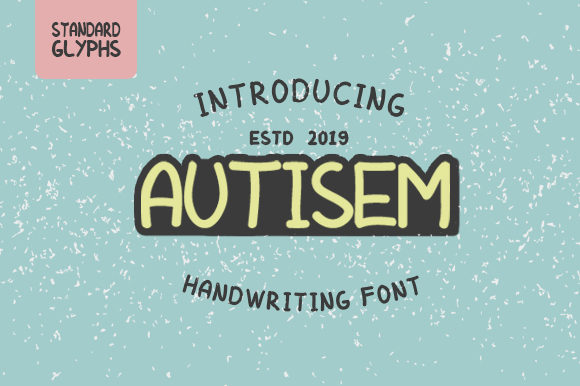
The Autisem Font: A Game-Changer for Designers and Crafters
I’ll never forget the moment I stumbled upon the Autisem font. I was working on a project for a client who wanted a bold, yet elegant look, and I was struggling to find the right font. Hours of scrolling through font libraries and trying out different combinations had yielded nothing but frustration. That’s when I discovered Autisem, a fresh and unique handwritten font with a bold touch that completely transformed my design.
An Honest Review of Autisem
- ✨ Unique and fresh design that stands out from the crowd
- ✅ Bold touch that adds elegance to any design project
- 💡 Highly versatile and can be used for a wide range of projects, from branding to crafting
- 🎨 Beautifully crafted to ensure excellent readability
While Autisem is an amazing font, there are a few things to keep in mind:
- 🤔 Some users may find the font a bit too bold for certain projects, so it’s essential to use it in moderation
- ⚠️ As with any font, it’s crucial to test it thoroughly to ensure it works well with your specific design
The Story Behind Autisem
Autisem was designed with the intention of creating a unique and versatile font that could be used for a wide range of projects. The designer, inspired by the beauty of handwritten fonts, aimed to create a font that would add a touch of elegance to any design. With its bold touch and fresh design, Autisem has quickly become a favorite among designers and crafters.
| Font Name | AUTISEM Font |
| Author | Arendxstudio |
Q: Is Autisem suitable for body text?
A: While Autisem is beautiful, it’s recommended to use it for headlines and titles rather than body text, as it can be a bit too bold for long blocks of text.